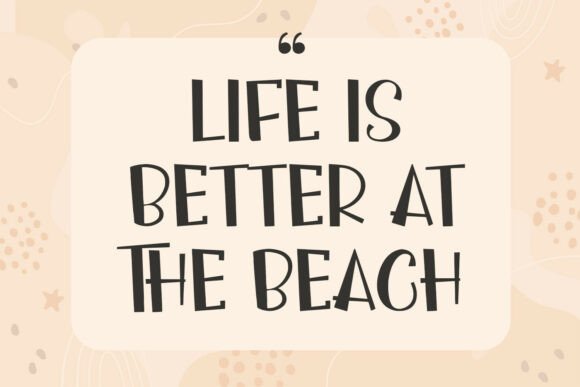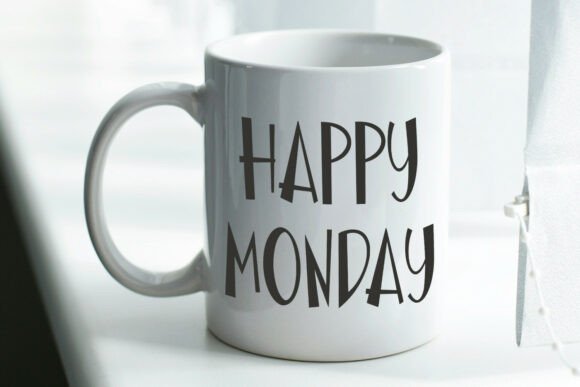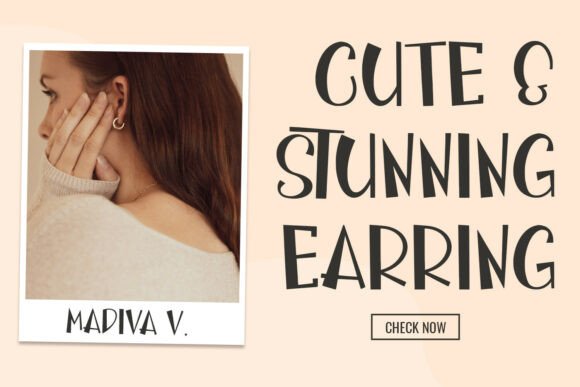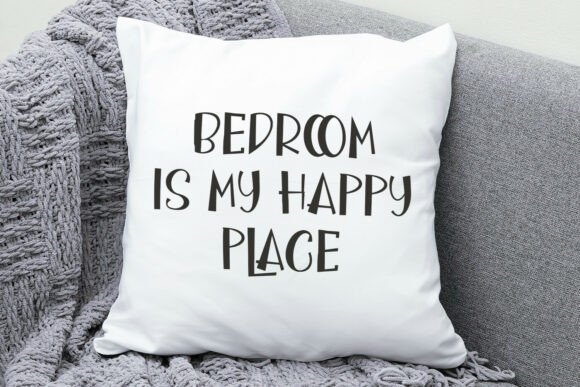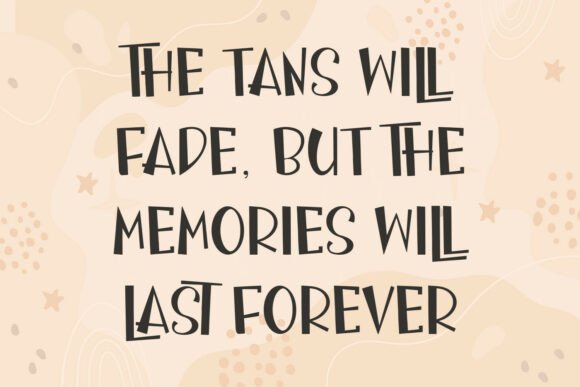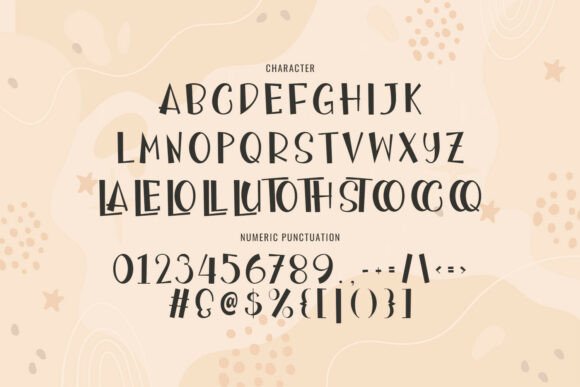
Introducing Elockkon Font: The Playful and Unique Display Font You Need
Are you tired of using the same old boring typography in your creative projects? Look no further! Say goodbye to dull and uninspiring fonts and hello to Elockkon, a wonderfully playful and unique display font designed to inject joy and personality into all your designs. In this article, we’ll dive into the world of Elockkon and explore its features, benefits, and uses.
What is Elockkon Font?
Elockkon is a wonderfully playful and slightly quirky sans-serif display font, bursting with charm and a lighthearted, hand-drawn personality. This font is perfect for projects that require a sense of fun and approachability, making it ideal for designs aimed at children, lighthearted branding, and playful marketing materials.
Key Features of Elockkon Font
So, what makes Elockkon font so special? Here are some of its key features:
- Unique Glyphs: Elockkon features unique glyphs with varying heights and weights, giving it a distinctive and playful aesthetic.
- Subtle Irregular Curvature: The font’s subtle, irregular curvature adds to its hand-drawn and whimsical feel.
- Bold and Eye-Catching Shapes: Elockkon’s bold and eye-catching shapes make it perfect for grabbing attention and conveying a sense of fun.
- Hand-Drawn Look: The font’s hand-drawn look gives it a friendly and approachable feel, making it perfect for designs that require a personal touch.
Uses of Elockkon Font
Elockkon font is perfect for a wide range of creative projects, including:
- Children’s Book Titles: Add a touch of whimsy and fun to your children’s book titles with Elockkon font.
- Whimsical Party Invitations: Create playful and eye-catching party invitations that will delight kids and adults alike.
- Kindergarten Material: Use Elockkon font to create engaging and fun educational materials for kindergarten students.
- Playful Product Packaging: Add a touch of personality to your product packaging with Elockkon font.
- Casual Social Media Graphics: Use Elockkon font to create fun and engaging social media graphics that will help you connect with your audience.
Benefits of Using Elockkon Font
So, why should you use Elockkon font in your creative projects? Here are some of its benefits:
- Adds Personality: Elockkon font adds a touch of personality and whimsy to your designs, making them more engaging and memorable.
- Conveys a Sense of Fun: The font’s playful and lighthearted aesthetic makes it perfect for conveying a sense of fun and approachability.
- Grabs Attention: Elockkon font’s bold and eye-catching shapes make it perfect for grabbing attention and standing out from the crowd.
- Versatile: The font is versatile and can be used in a wide range of creative projects, from children’s book titles to social media graphics.
Tips for Using Elockkon Font
Here are some tips for using Elockkon font in your creative projects:
- Use it Sparingly: Use Elockkon font sparingly to add a touch of personality to your designs. Overusing the font can make your designs look cluttered and overwhelming.
- Pair it with Other Fonts: Pair Elockkon font with other fonts to create a unique and visually appealing typography combination.
- Experiment with Colors: Experiment with different colors to find the perfect combination that complements Elockkon font.
In conclusion, Elockkon font is a wonderfully playful and unique display font that can add a touch of personality and whimsy to your creative projects. With its bold and eye-catching shapes, subtle irregular curvature, and hand-drawn look, Elockkon font is perfect for designs that require a sense of fun and approachability. Whether you’re a designer, crafter, or DIY enthusiast, Elockkon font is a great addition to your typography collection.